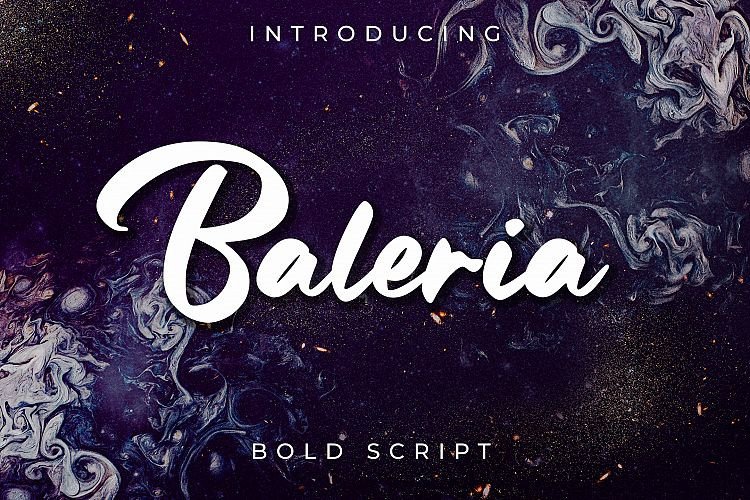
Baleria Bold Script Font
This is a bold script typeface. Created in response to current graphic design trends. It’s will add a touch of worldly knowledge to your artwork. Befonts introducing Baleria Font. It’s designed and shared by Abraham Type. Baleria Bold Script created from naturally handwritten, it will make your design more beautiful. Perfect for those of you who need fonts for especially the types of logos, clothing, signage, branding, packaging, advertising, and more. I have designed a number of examples, so you can see how it can be used.